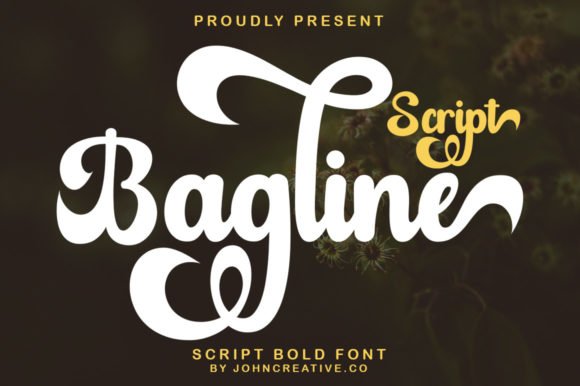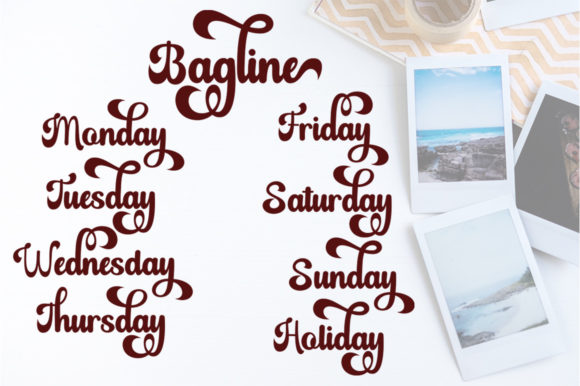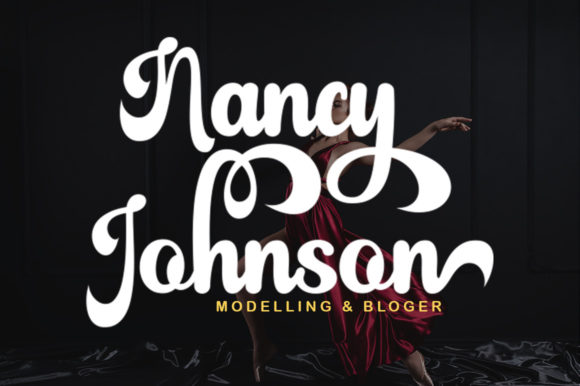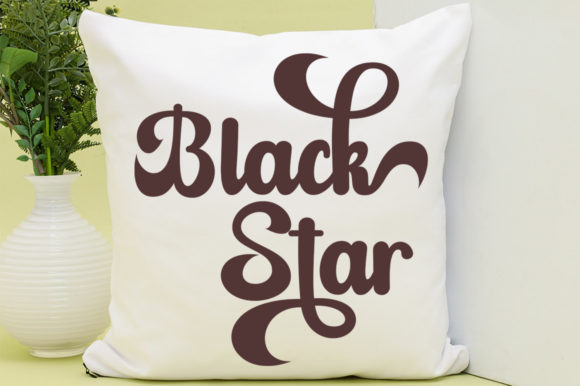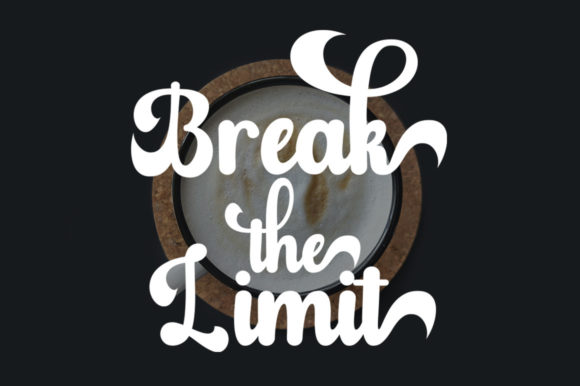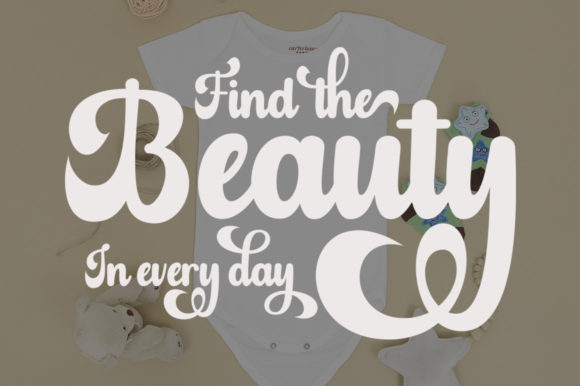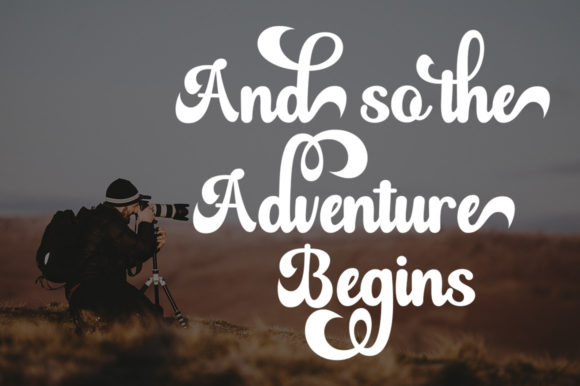
Unleash the Charm of Your Creations with Bagline Script Font
There’s something special about holding a handmade card or seeing a brand’s logo that exudes personality. It’s a moment when you realize that the small details can make all the difference. For designers, finding the right font to convey confidence, authenticity, and charm can be a challenge. That’s where Bagline Script Font comes in – a retro styled and sophisticated handwritten font that’s perfect for delivering any message with style.
Bagline Script Font is designed to elevate your crafting ideas, from cards and branding to labels and more. With its PUA encoded features, you can access all glyphs and swashes with ease, giving you the freedom to get creative. Whether you’re a seasoned designer or just starting out, this font is a valuable addition to your toolkit. With Bagline Script Font, you’ll be able to add a touch of sophistication and charm to your projects, setting them apart from the rest.
Bagline Script Font Key Features
- Font Family: Bagline Script
- Unique Characteristics: Elegant, cursive script font with a vintage flair, suitable for creative and artistic applications
- Font Style: Script, with various ligatures and swashes to enhance readability and aesthetic appeal
Bagline Script Font Review
As a designer, I’m always on the lookout for beautiful, functional fonts to enhance my designs. The Bagline Script Font is one such find. ✨ I love the elegant, cursive design that adds a touch of sophistication to any text. The font is highly customizable, allowing for easy adjustments to size, color, and spacing.
- Highly customizable with a wide range of size and color options
- Elegant, cursive design perfect for headings and titles
- Works well for both digital and print media
However, there are some limitations to consider. ⚠️ The font may not be suitable for body text due to its ornate design, which can make it difficult to read at smaller sizes. Additionally, the font may not be compatible with all operating systems, which could lead to display issues.
Overall, I’m impressed with the Bagline Script Font. While it may not be the perfect solution for all design needs, it’s a great choice for adding a touch of elegance to headings, titles, and other decorative text. With its high level of customizability and versatility, it’s a valuable addition to any designer’s toolkit.
The Bagline Script Font is perfect for:
– Adding a touch of elegance to invitations and wedding stationery.
– Creating eye-catching headlines and titles.
– Adding a unique flair to social media graphics and blog posts.